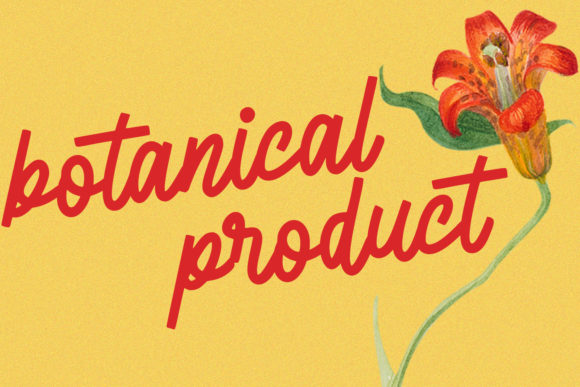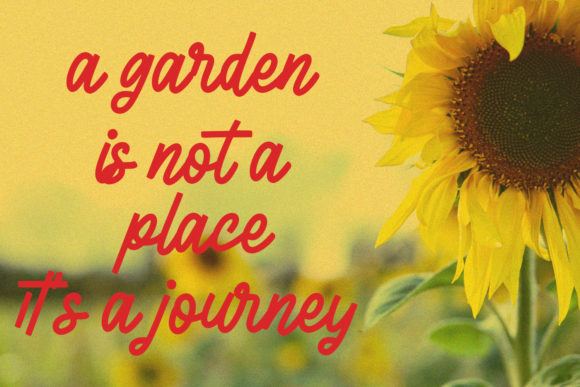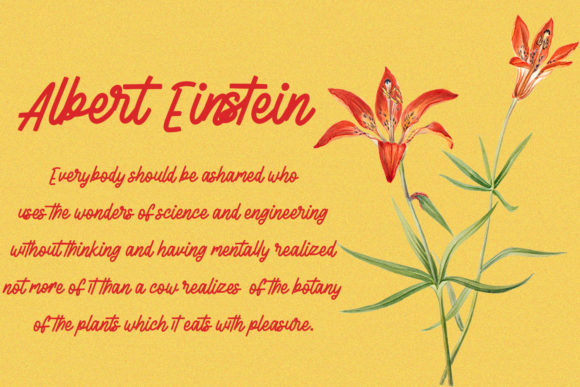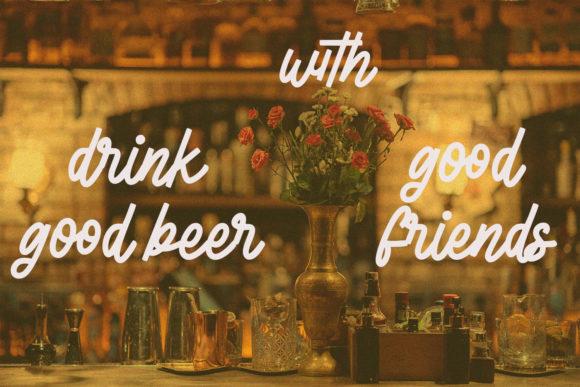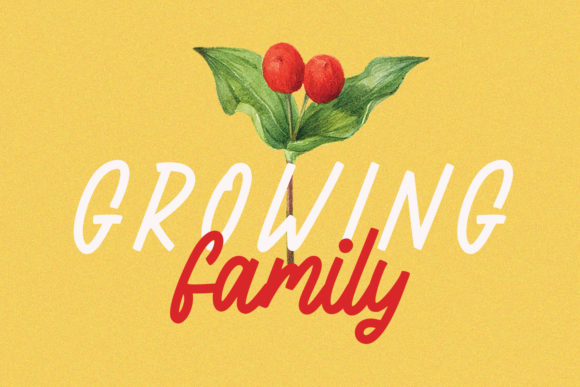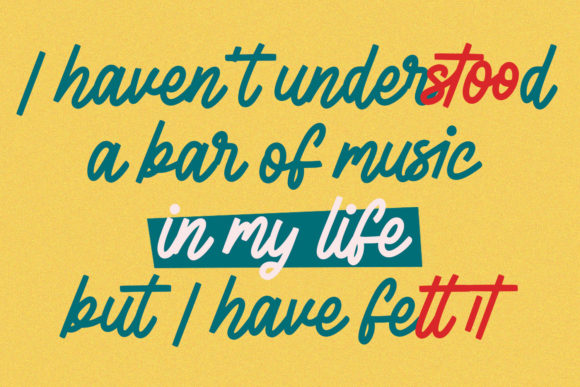
Introduction to La Flexes Font
Imagine you’re brainstorming ideas for your next creative project, and you stumble upon the perfect phrase to describe your vision. The words flow effortlessly onto the page, and you know exactly which font to use to bring your design to life. That’s where La Flexes Font comes in – a stunning, high-quality handwritten script font that adds a touch of elegance and sophistication to any project.
As a valuable resource for designers, La Flexes Font is perfect for creating unique and eye-catching designs that stand out from the crowd. Whether you’re working on a product label, a wedding invitation, or a social media campaign, this font can be used to add a personal touch and make your design truly special. And the best part? It’s available for free download, making it an accessible design resource for creatives of all levels.
Key Features of La Flexes Font
- High-quality design resource suitable for creative projects, offering a unique and modern aesthetic.
- Features a transparent background, allowing for easy customization and layering in your design.
- Designed with precision and care, this font boasts a high resolution of 300 DPI, ensuring crisp and clear text display.
- Comes in a range of sizes, from small to large, making it versatile for use in various design contexts, including logos, headings, and body text.
- Perfect for designers, artists, and creatives looking for a high-quality design resource to elevate their projects and stand out from the crowd.
- La Flexes Font is a great addition to any design library, providing a unique and creative solution for your next project.
Honest Review: La Flexes Font
I recently had the chance to work with the La Flexes Font, and I must say it’s a great addition to any designer’s toolkit. This free download is perfect for creative projects where you need a high-quality font with a bit of flair.
What works well is the transparent background option, which makes it easy to customize and integrate with your design. The font itself is highly versatile and can be used for a wide range of applications, from logos to headings and body text.
Here are some of the key features that I love about La Flexes Font:
- Transparent background option for easy customization
- Perfect for logos, headings, and body text
However, I do have a few limitations to mention: ⚠️
⚠️ Limited font sizes and styles available
⚠️ Not suitable for very small text sizes
Overall, I’m impressed with La Flexes Font and would definitely recommend it to fellow designers. With its high-quality design and versatile options, it’s a great addition to any design resource collection.
La Flexes Font is suitable for a variety of creative projects, including logos, business cards, brochures, and social media graphics. Its high-quality design and transparent background make it an ideal choice for designers and non-designers alike.